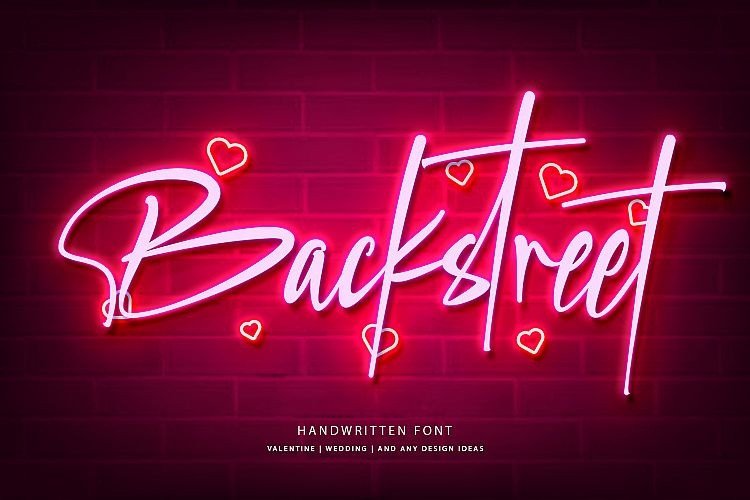
Backstreet Script Font
Thank you for looking Backstreet Font. This is hand-lettered script font, Make your day with this friendly and quirky handwritten font! Great for your crafting design. Backstreet Script is a purely handwritten typeface with its own unique characteristics.
It has an elegant, feminine style with a good readability. Perfect for valentine days, neon design, signatures, invitations, titles, and much more!